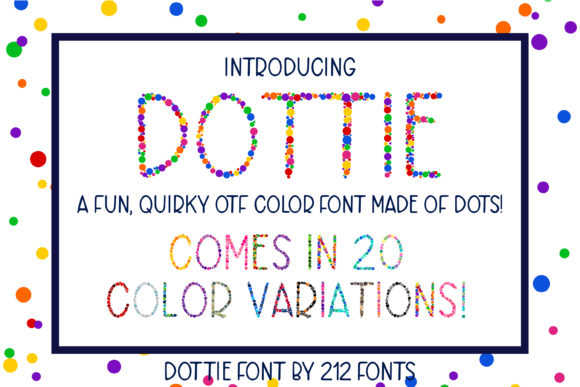
Prepare yourself to be mesmerized by the Dottie Font, a playful and vivacious font that will inject a dose of creativity and individuality into your designs. Picture this: a font composed entirely of vibrant dots, each one dancing and swirling in perfect harmony. With Dottie, you can bid farewell to dull and conventional designs and embrace a world of boundless imagination.
This extraordinary font is brought to you by 212 Fonts, renowned for their innovative and captivating creations. Dottie is not just a font; it's an experience that will transform your designs into captivating masterpieces. Whether you're crafting logos, invitations, posters, or any other creative project, Dottie will elevate your work to new heights.
But what truly sets Dottie apart is its versatility. Its playful nature lends itself perfectly to a vast array of design styles, from whimsical and lighthearted to elegant and sophisticated. Imagine the possibilities: a whimsical logo that exudes charm and playfulness, a wedding invitation that radiates joy and festivity, or a poster that captivates audiences with its vibrant energy.
So, why settle for ordinary when you can unleash the magic of Dottie? Embark on a creative adventure and transform your designs into extraordinary works of art. Experience the joy of creating with Dottie today!